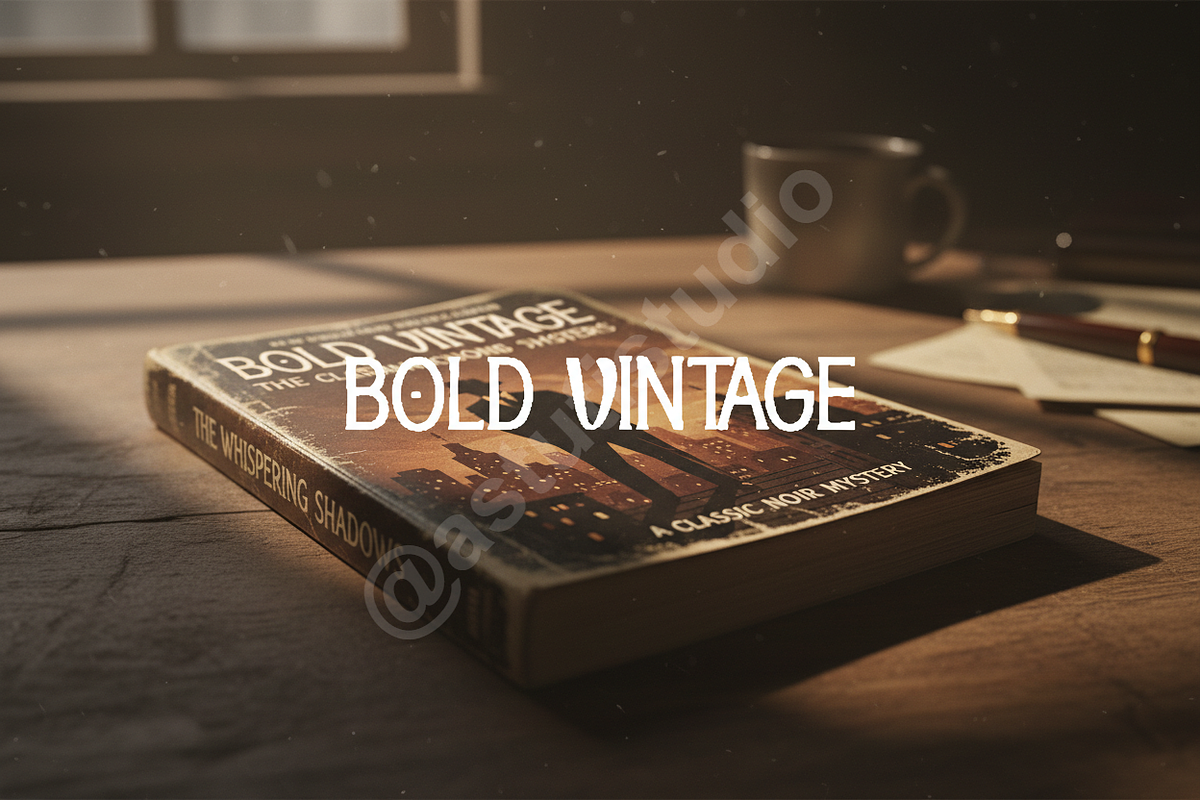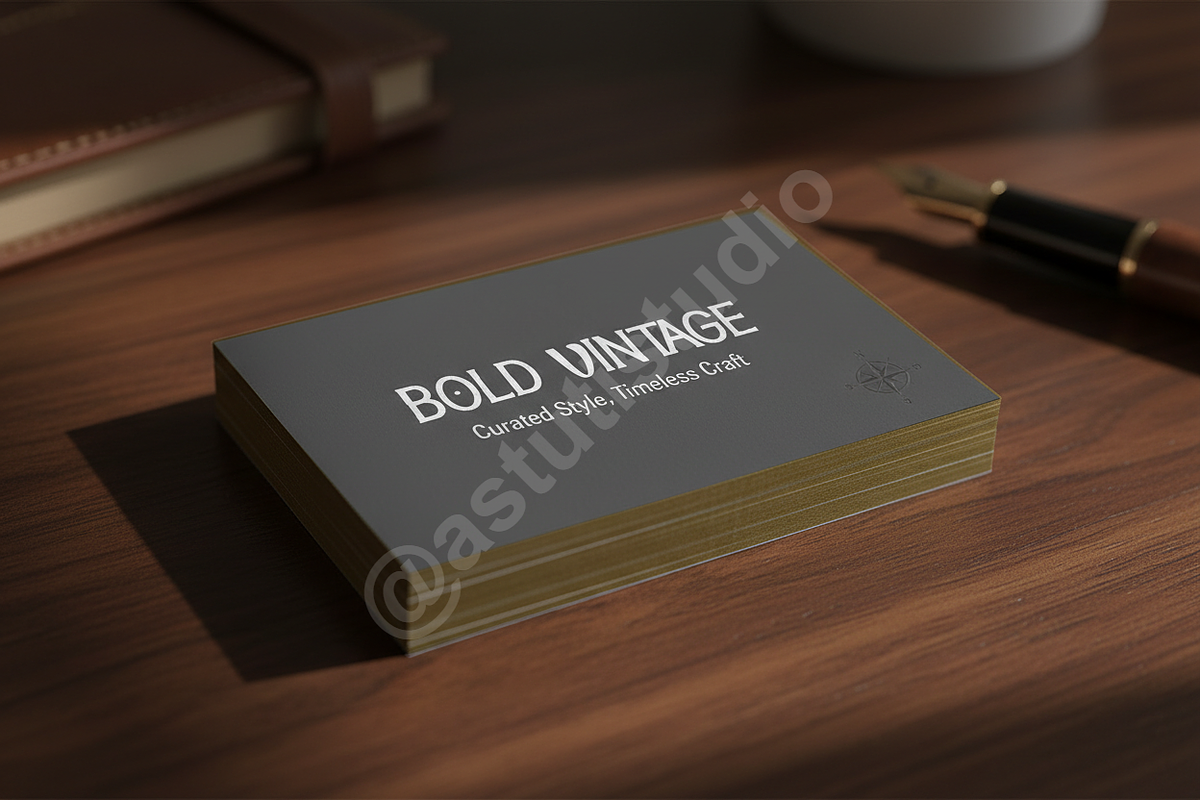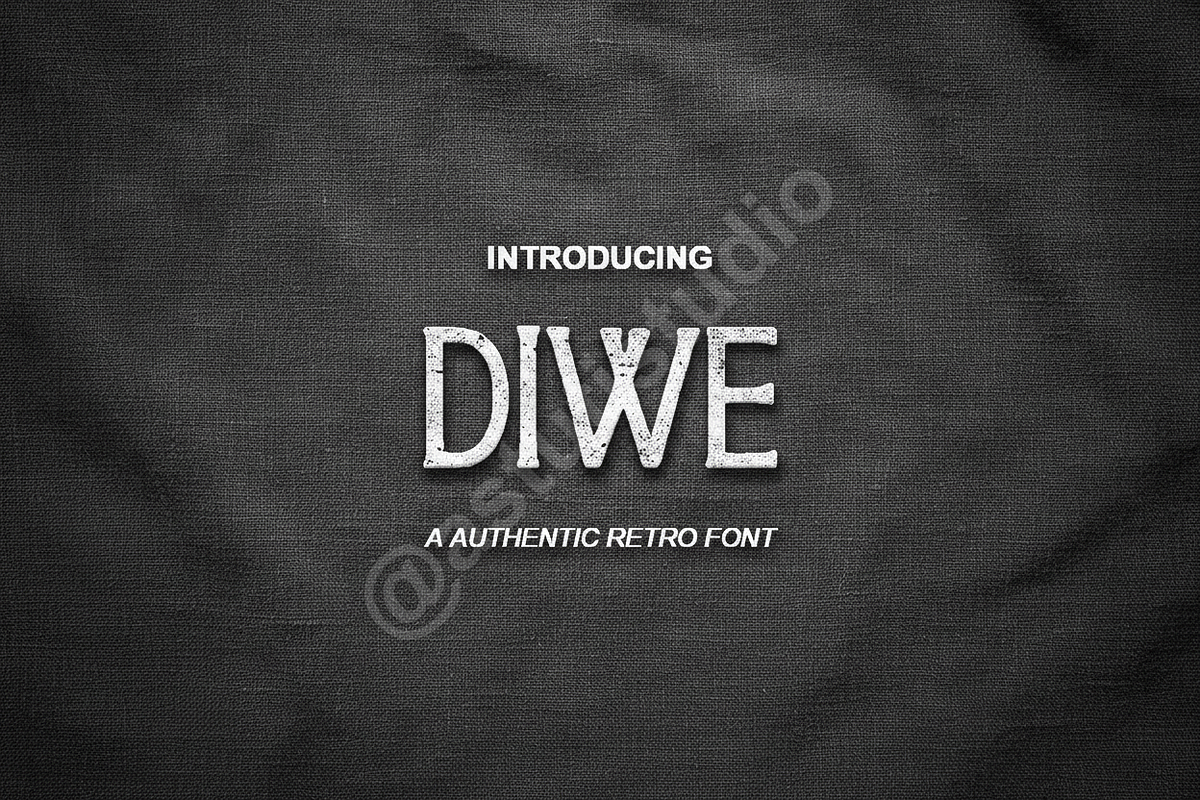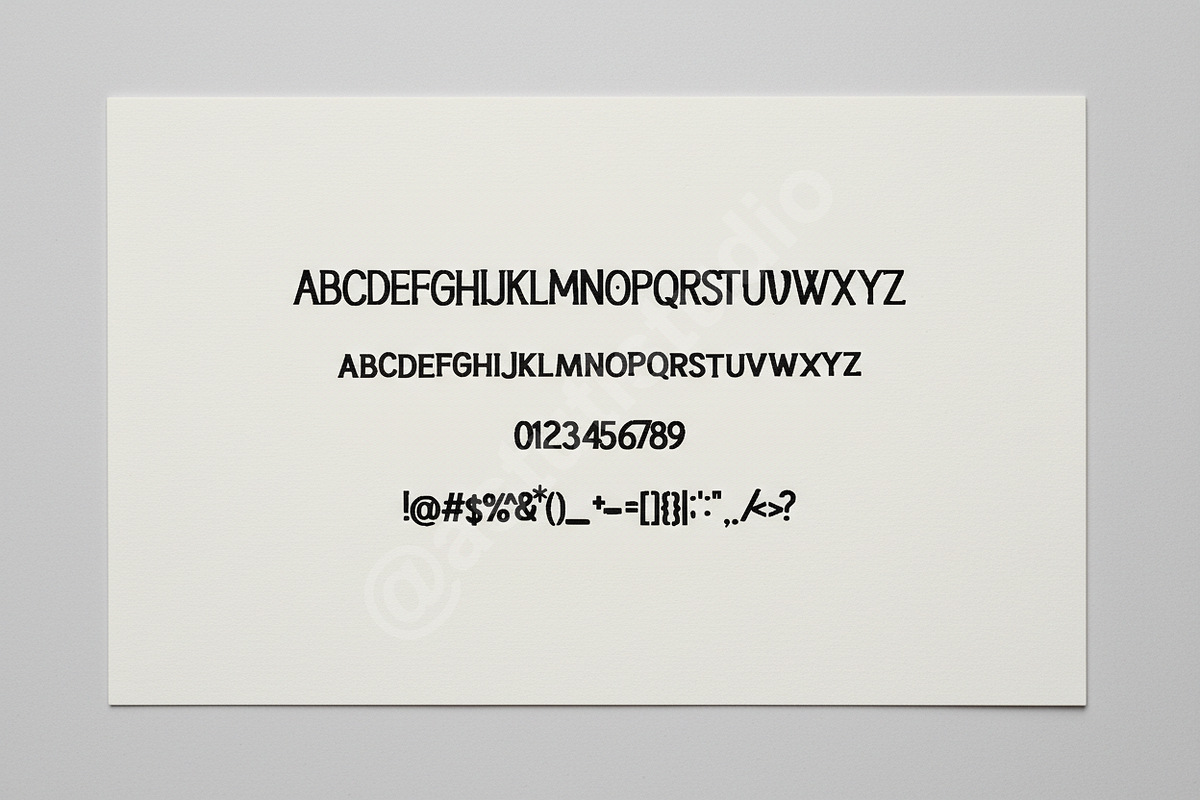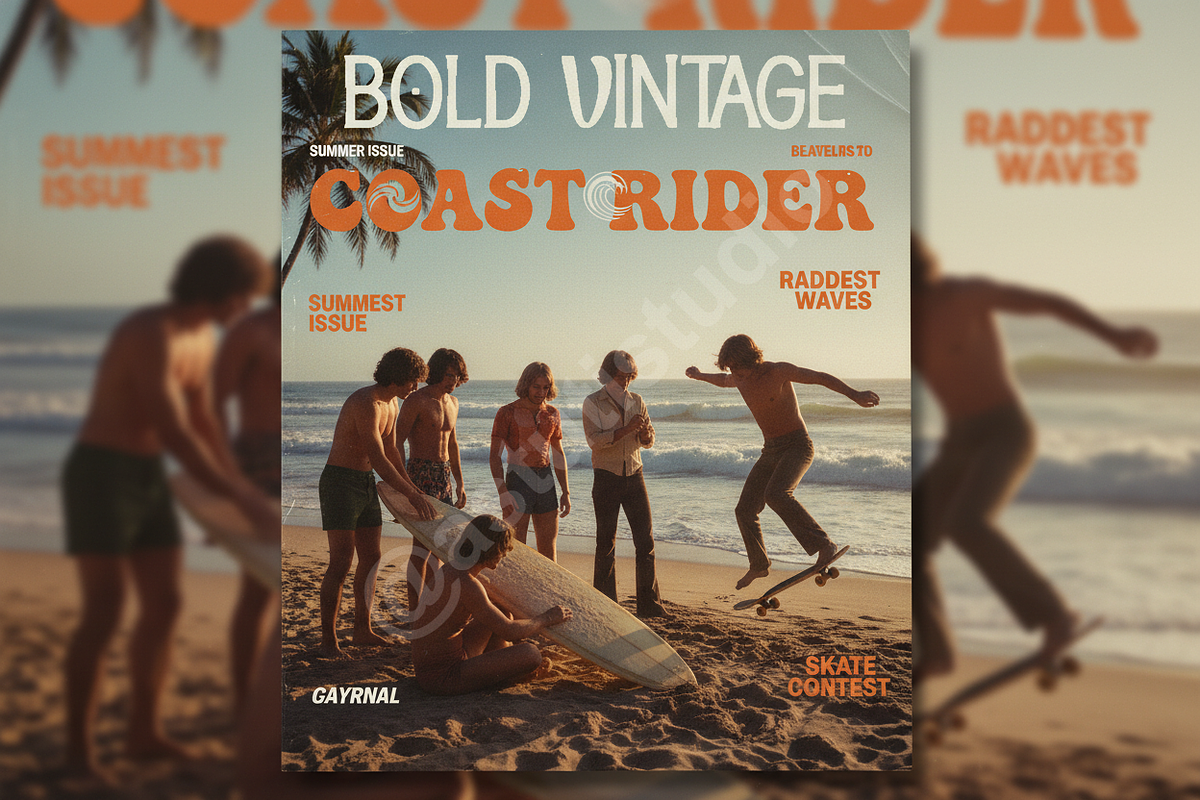
Diwe Serif Font - Elegant Luxury Bra
Diwe Serif Font is the epitome of refined elegance. Crafted with meticulous attention to detail, Diwe offers a luxurious and contemporary aesthetic that immediately elevates any design project. Its balanced strokes and subtle contrast make it the perfect choice for high-end visual communication, conveying exclusivity and timeless sophistication. Diwe is optimized for designers focused on quality output for luxury branding, sophisticated editorial layouts, and high-impact social media campaigns.
- Sophisticated High-Contrast Serifs for maximum visual impact.
- Complete set of Uppercase and Lowercase characters.
- Full Punctuation, Numerals, and extended Western European Language Support.
- OpenType Features including discretionary ligatures and stylistic alternates for dynamic, personalized typography.
- Optimal readability in both large display settings (editorial titles, packaging) and smaller text applications (social media captions).
- Ideal for premium product packaging, magazine design, website headers, and corporate identity.